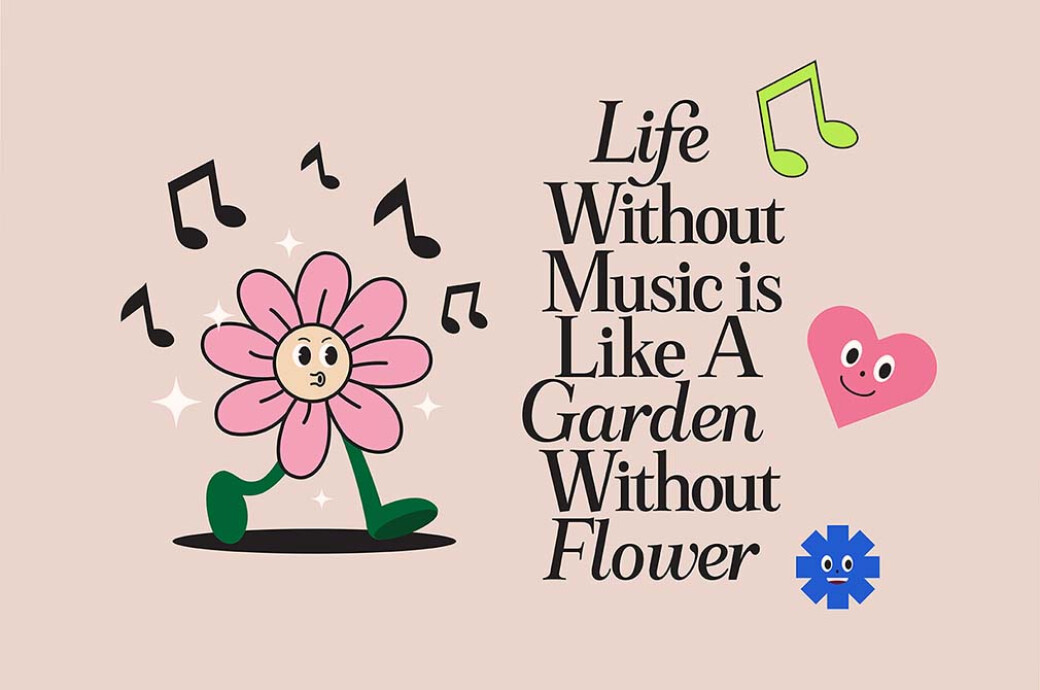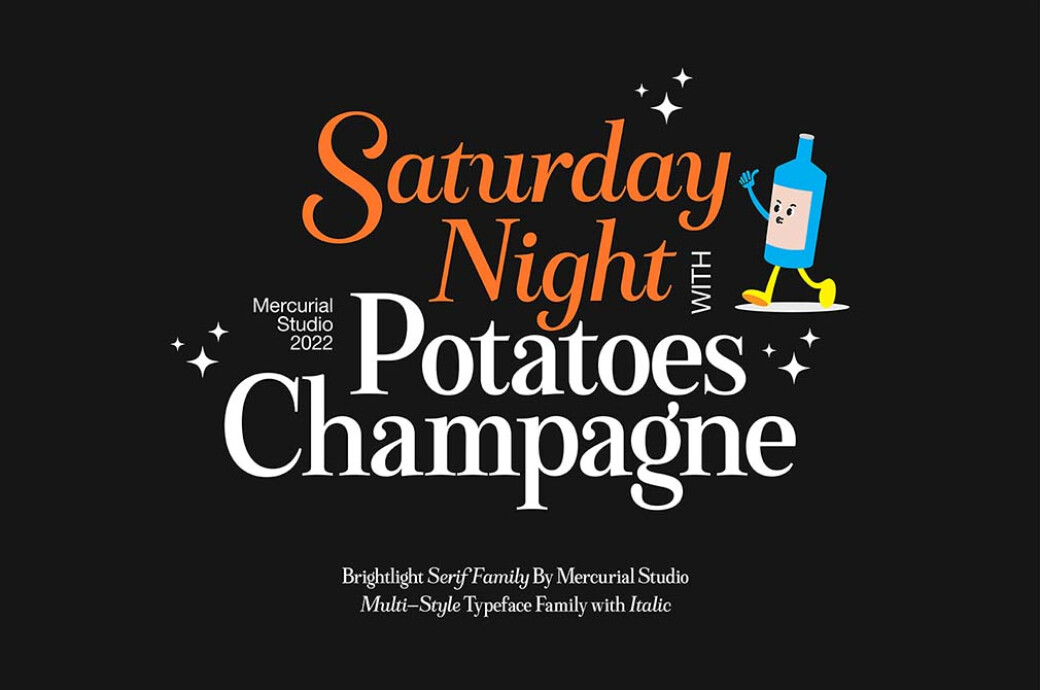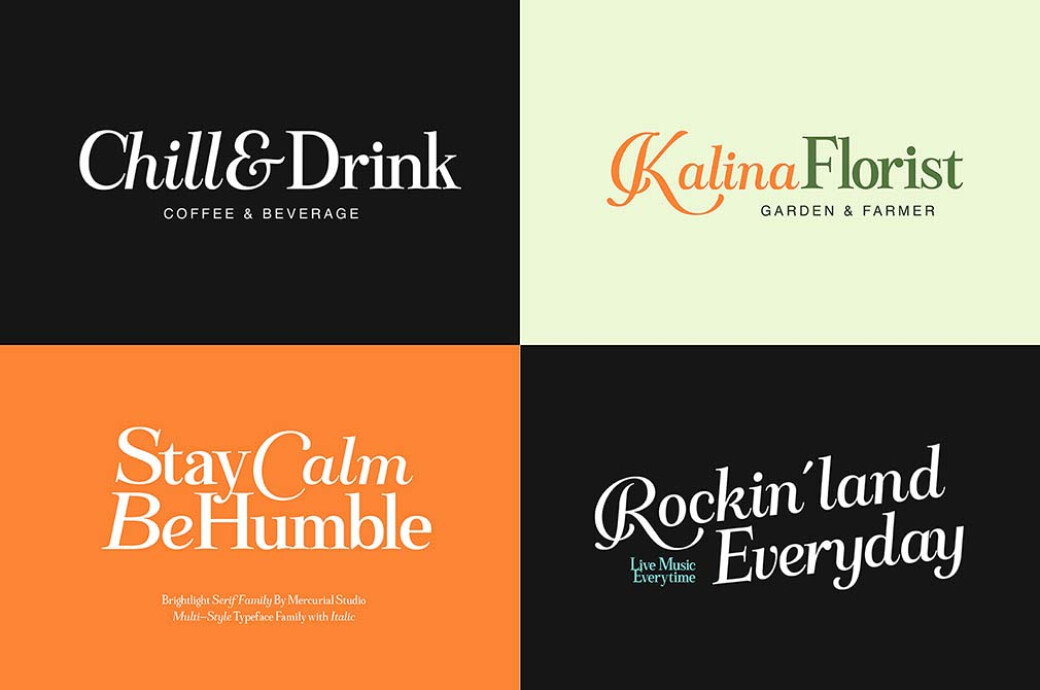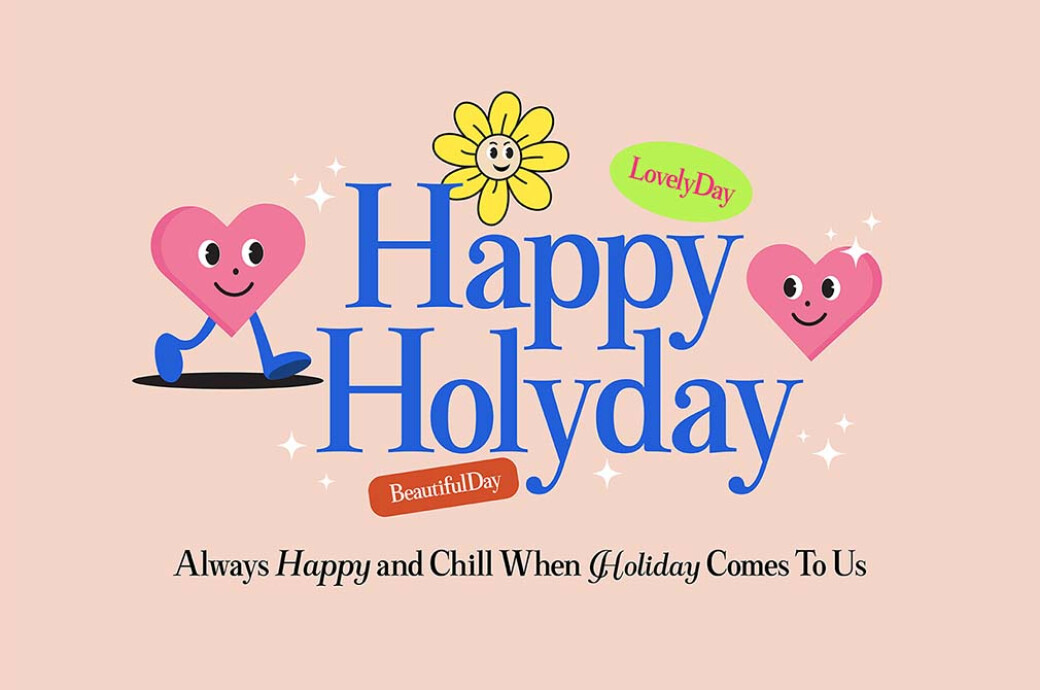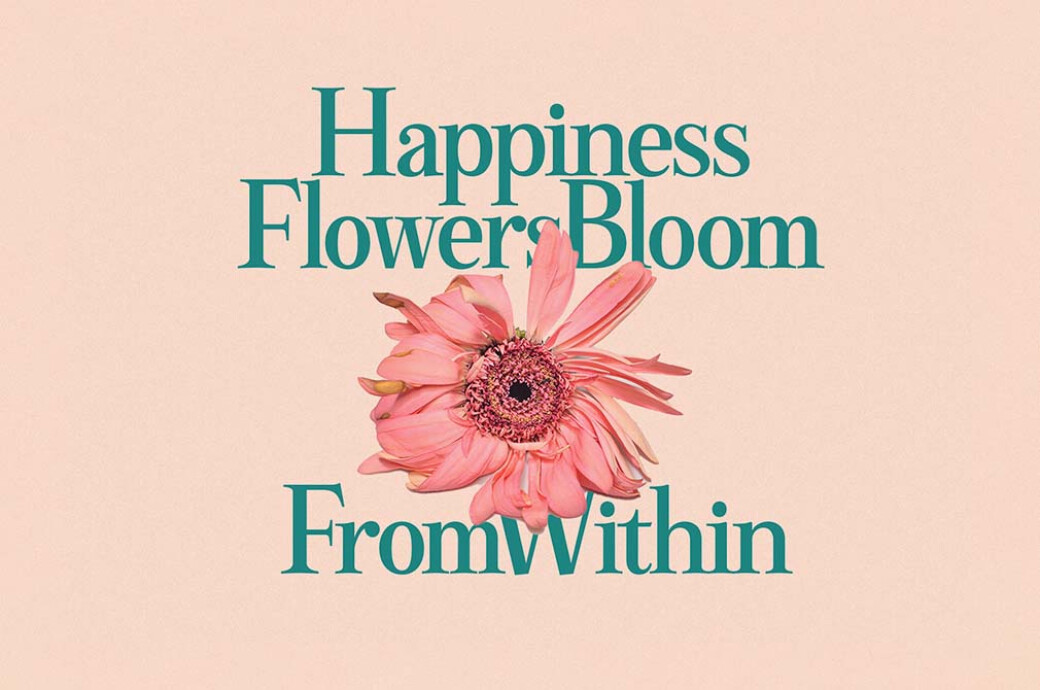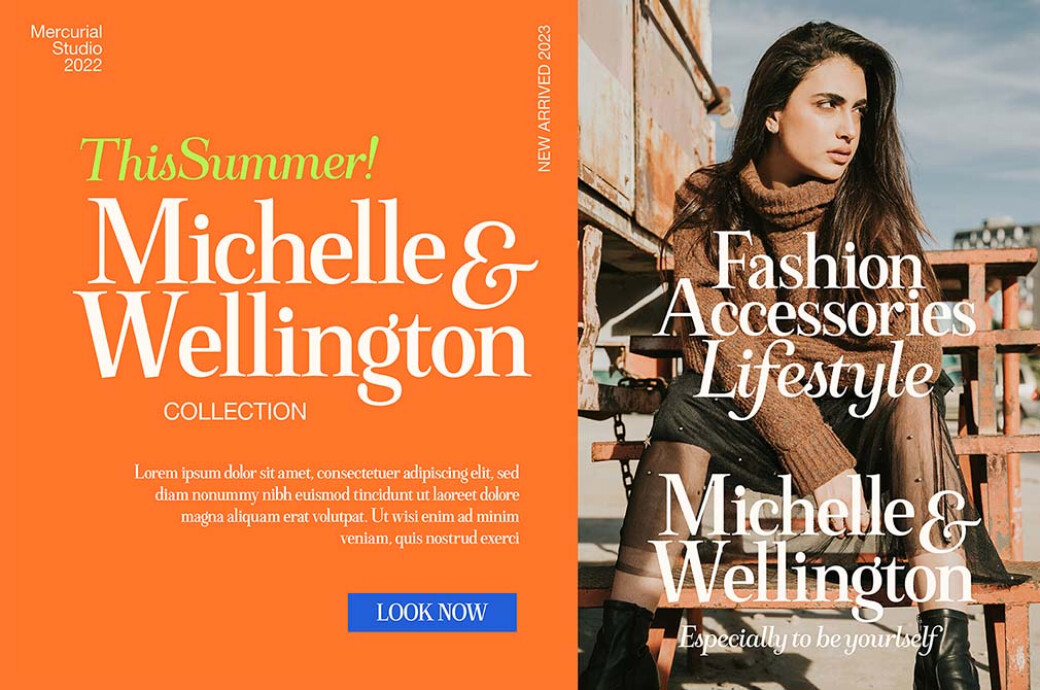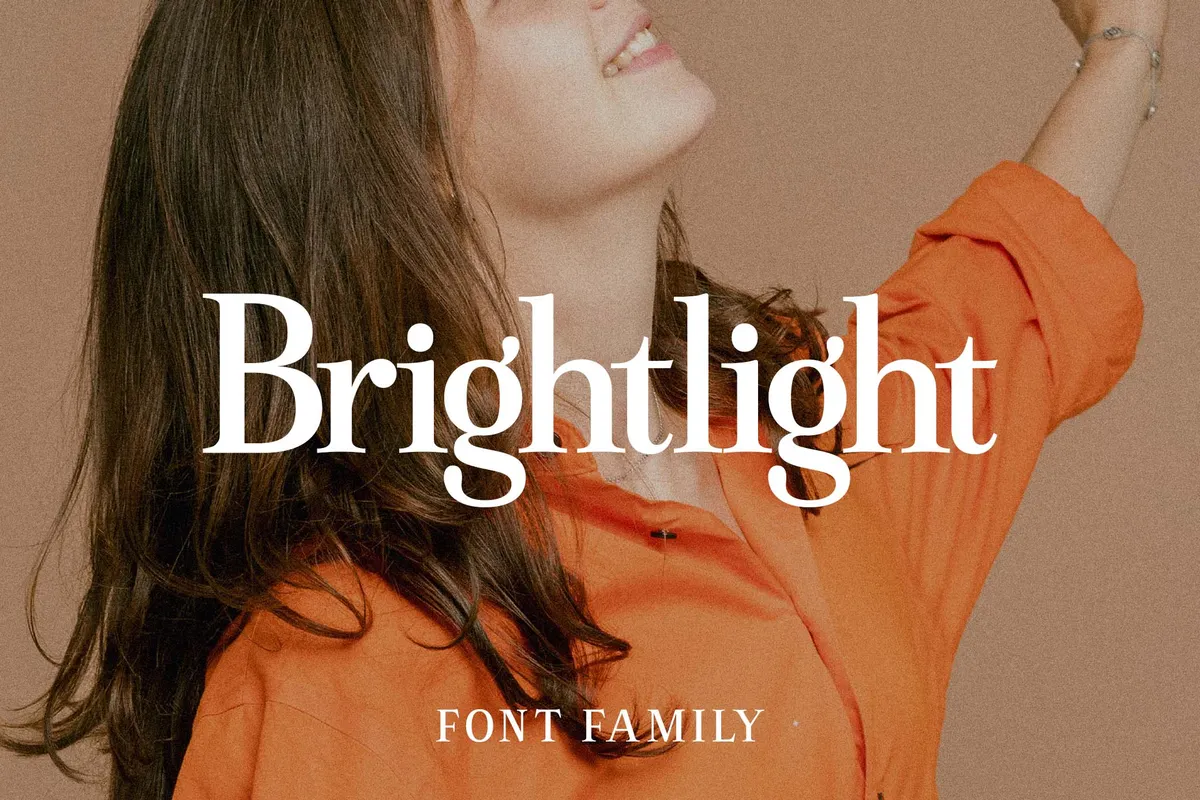
Brightlight Font Family
Brightlight is a dazzling font family. Just as you like it: a classy trio of the regular, script, and oblique type styles that grants ultimate versatility!This font family creates a wow effect just as you look at it! Brightlight combines an elegant and modern feel, and there's everything a designer might want from a type: an extended Latin character set of glyphs and advanced OpenType features like standard and discretionary ligatures. You can use the three font styles (Serif Regular, Serif Oblique & Script) for logos, stylized quotes, wedding stationery, art prints, packaging, and more. Actually, nothing stops you from taking advantage of the full potential of Brightlight.